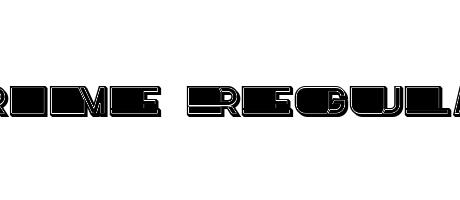
Crime
Crime Regular: A bold, imposing typeface, each letter a solid block of dark ink with subtly beveled edges, suggesting depth and weight. The style evokes a sense of grit and urban energy, perhaps fitting for a crime thriller or a powerful brand statement. Its thick strokes create a strong, easily readable design.
Vladimir Nikolic